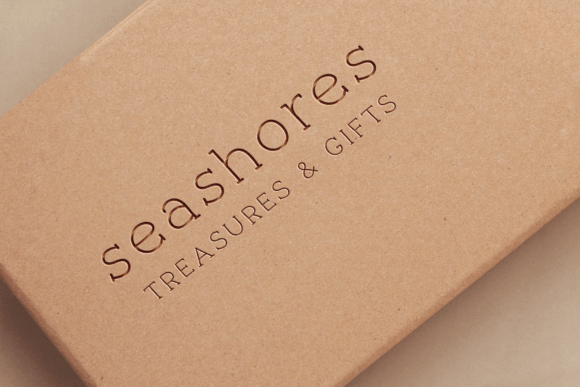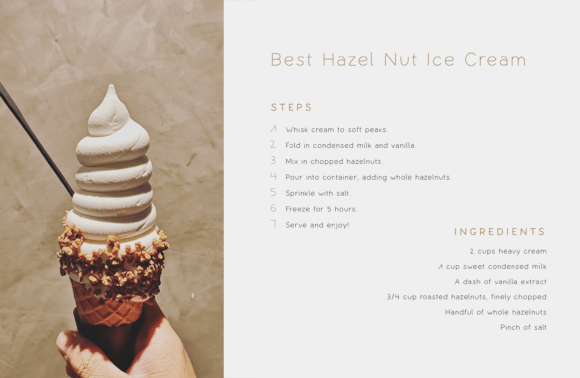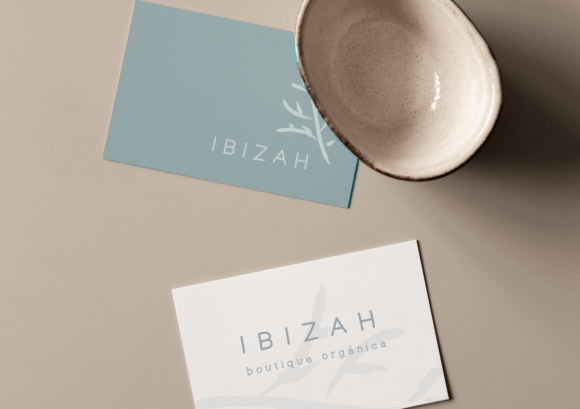
Beach Lovers Paradise Font
Introducing the ‘Beach Lovers Paradise’ Font Trio — a versatile collection designed to bring a touch of seaside elegance to both digital and print projects. This trio offers distinct styles in both Regular and Bold weights, ensuring flexibility across various applications. It comes with comprehensive multilingual support, making it ideal for international projects. The simplicity and clarity of Seawashed make it a perfect choice for text-heavy designs and user interfaces.